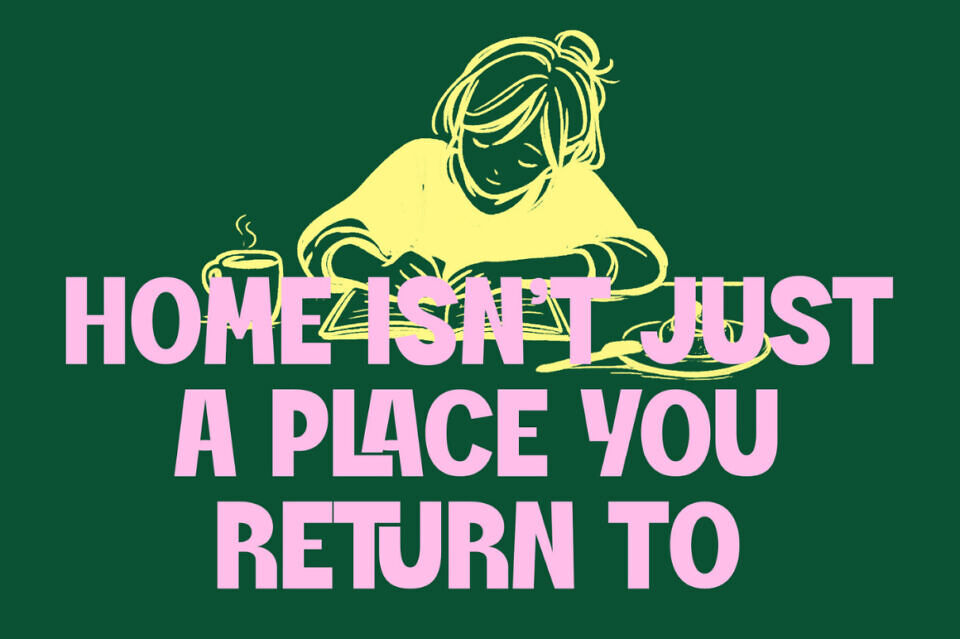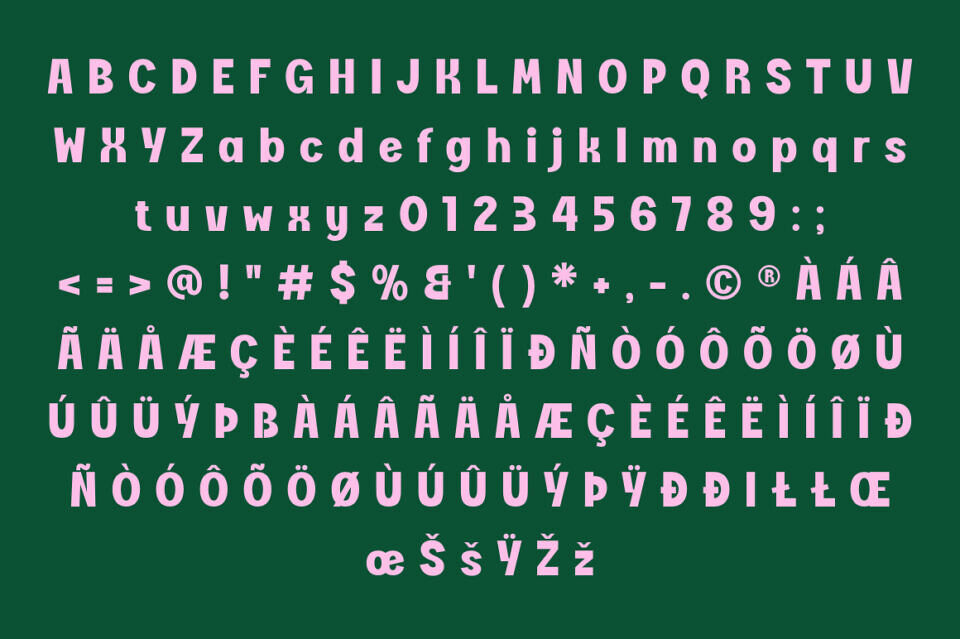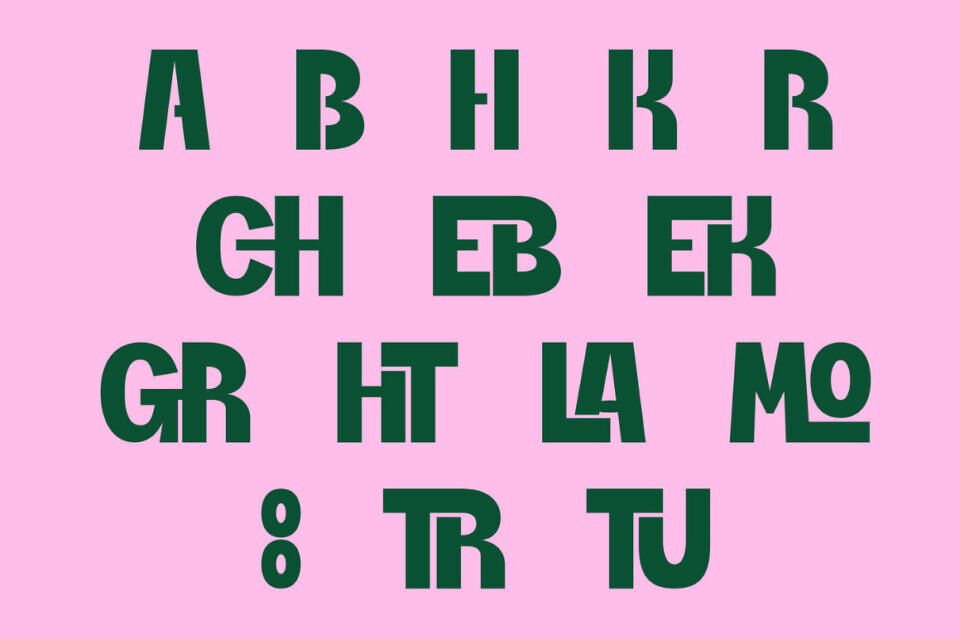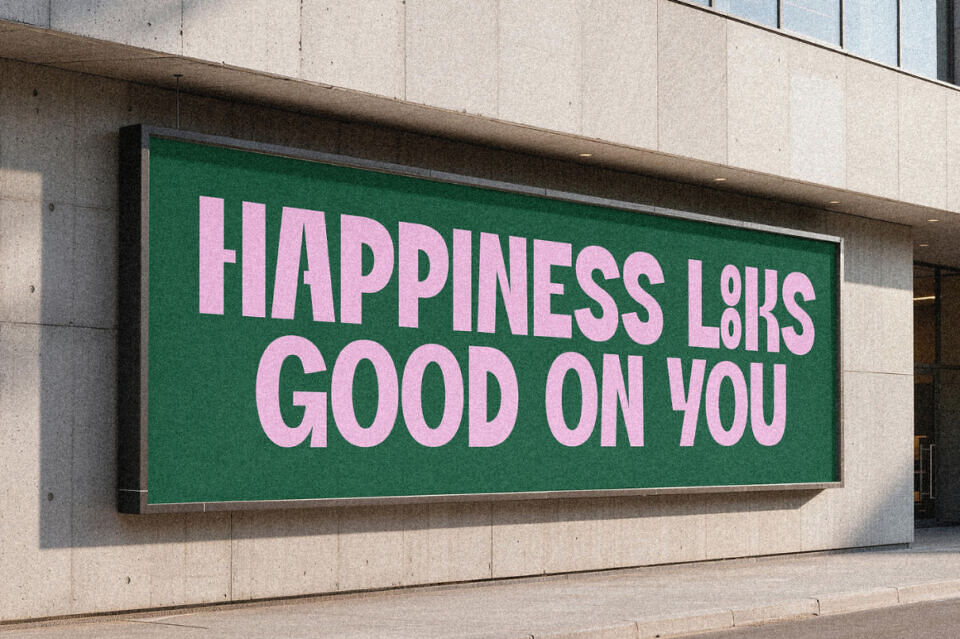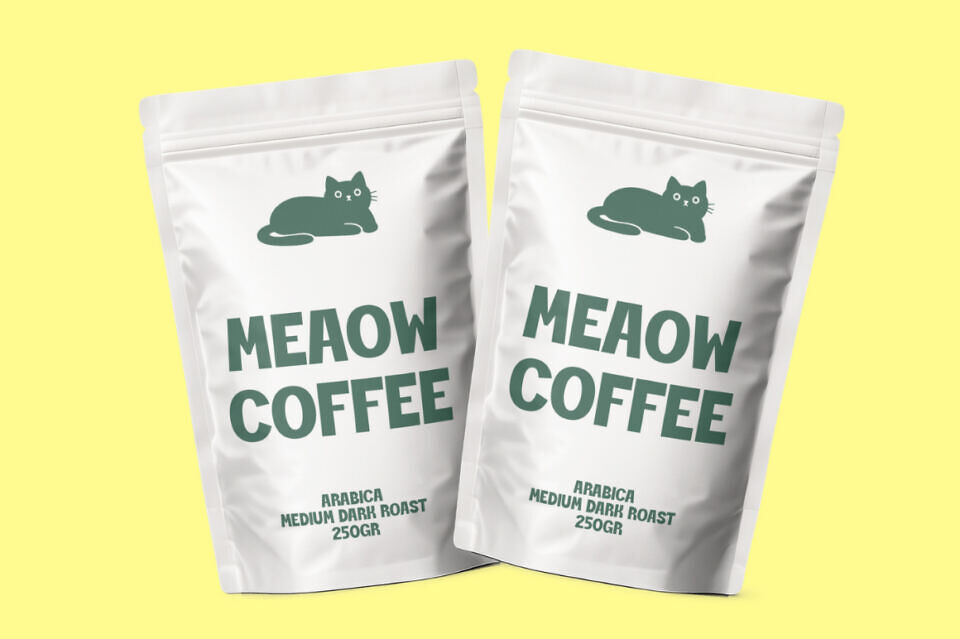
Molekt Font
Molekt is a bold display font designed to make a powerful visual impact. With its strong letterforms, solid structure, and confident presence, this font is perfect for headlines, logos, posters, branding, and eye-catching designs.
Molekt delivers clarity, strength, and modern style, making it an excellent choice for projects that need typography that stands out and commands attention.